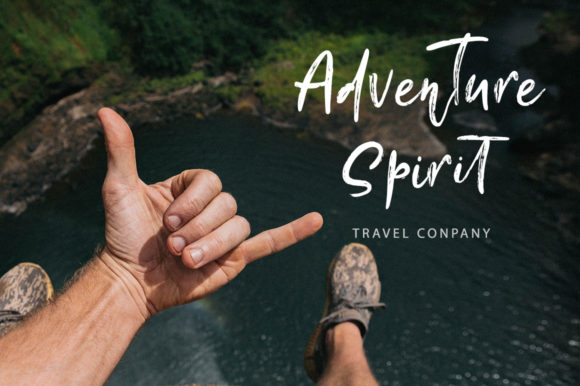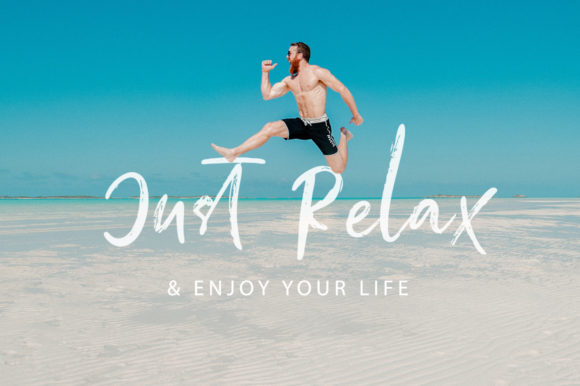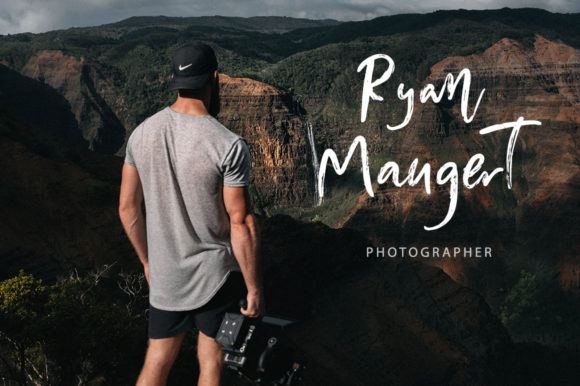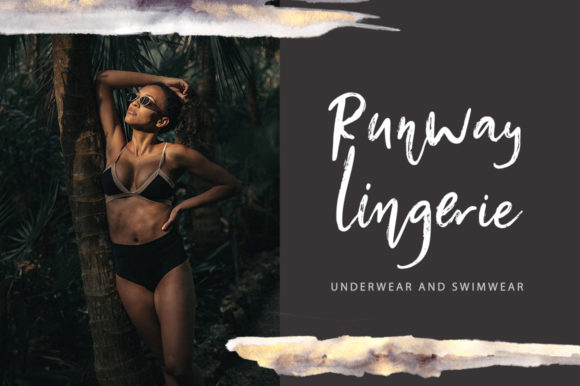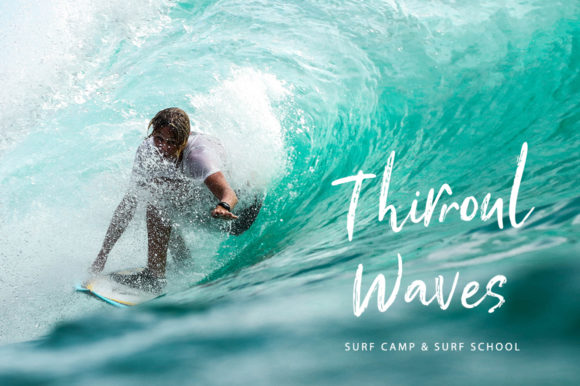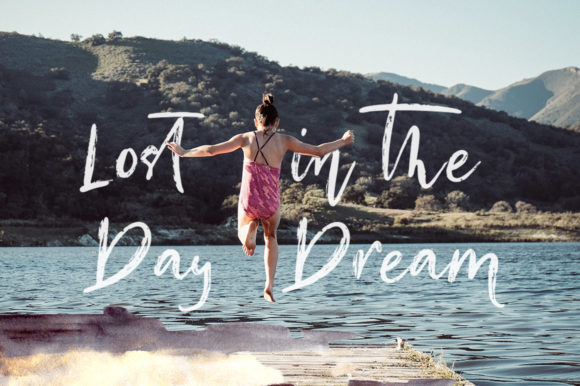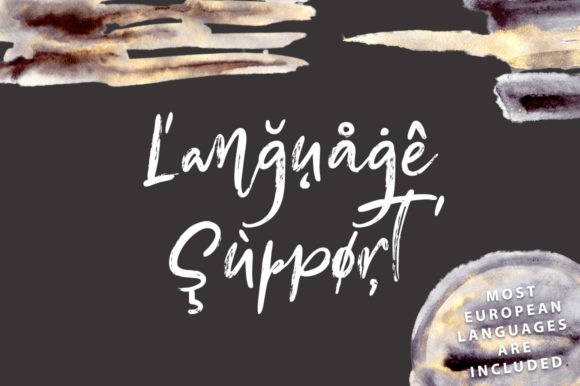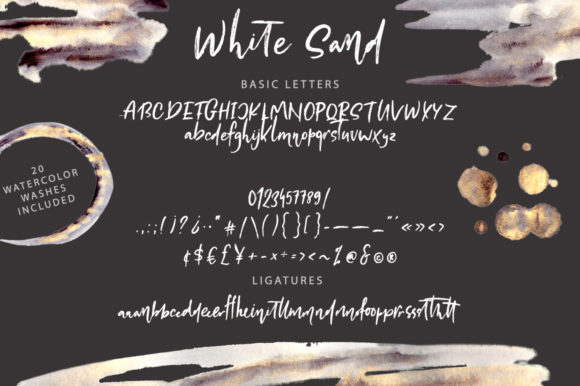
White Sand Font
About White Sand Font
White Sand is a beachy and dreamy script that radiates summer and positivity. Use it to add a relaxed vibe to any design project.